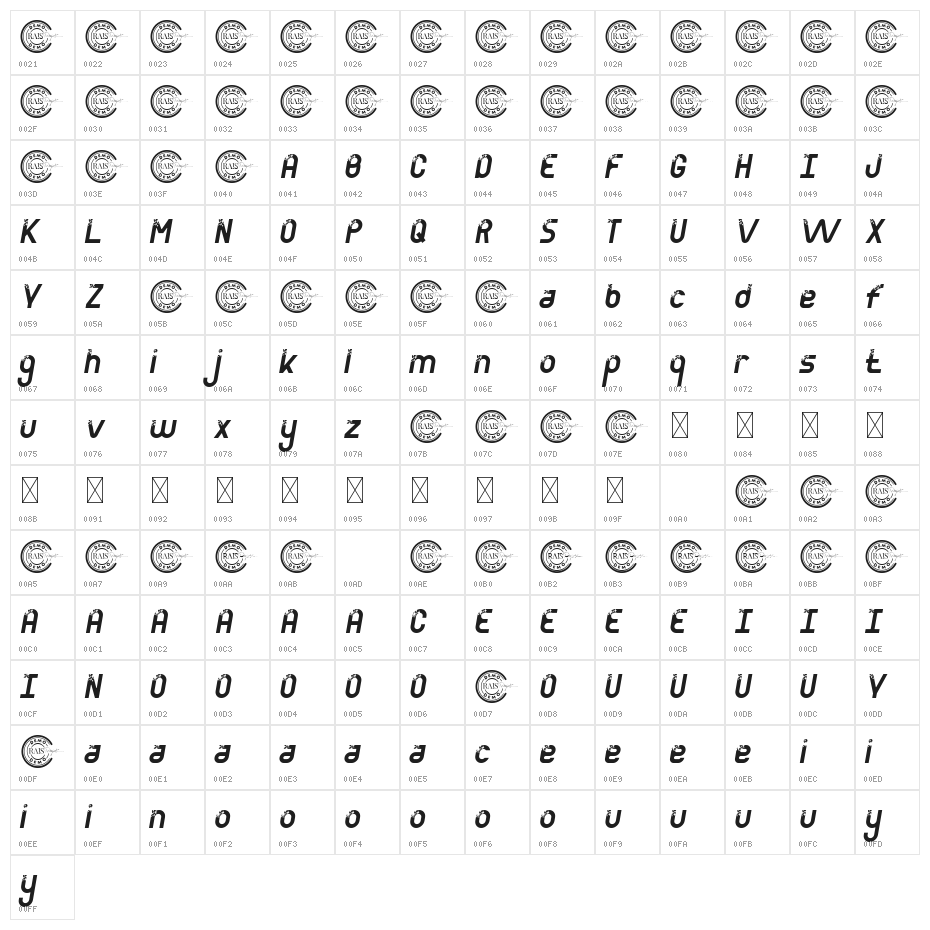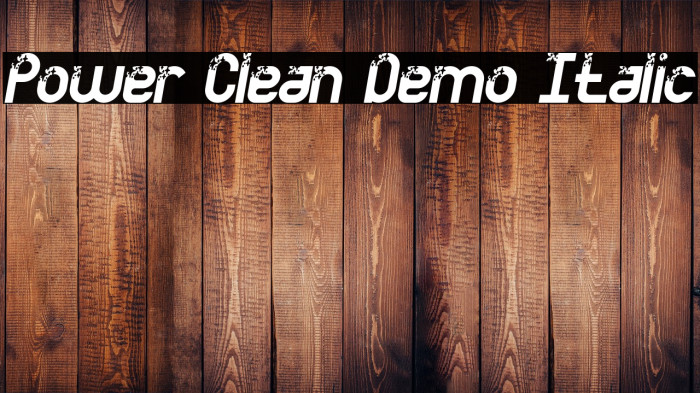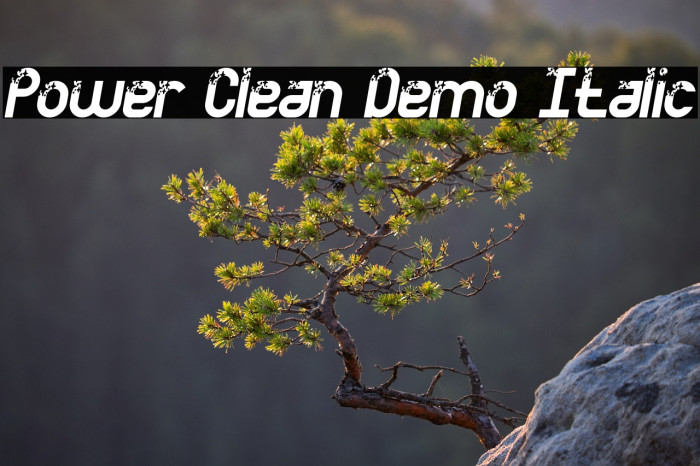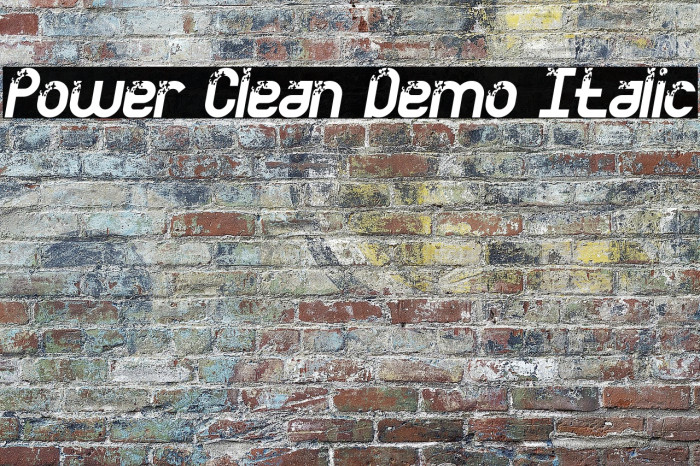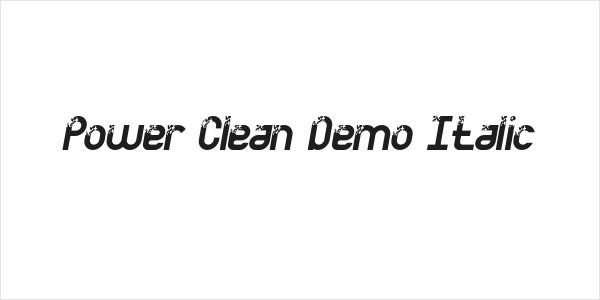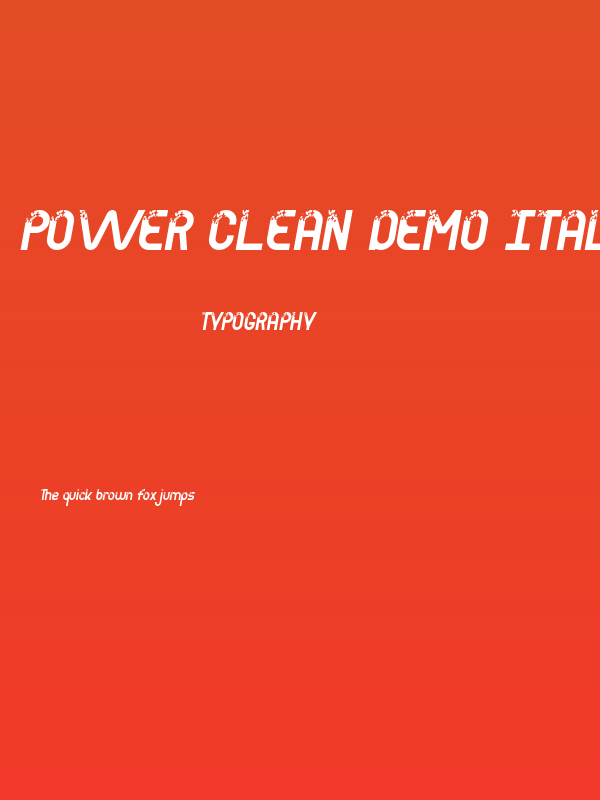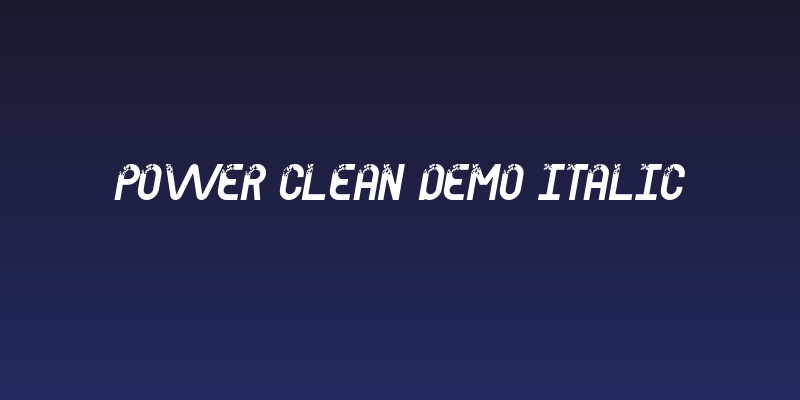
Power Clean Demo Italic Font
Power Clean Demo Italic Description
This font features a bold and dynamic design with a distressed, grunge-like texture that gives it a rugged and edgy appearance. The italicized style adds a sense of motion and energy, making it stand out in any design. The uppercase and lowercase letters maintain a consistent style, with sharp angles and clean lines that enhance its modern aesthetic. The numbers and special characters are equally bold and textured, ensuring a cohesive look across all elements. This font is perfect for projects that require a strong, impactful visual presence.
| Proposed Projects | Ideal for posters, album covers, branding, and any design needing a bold, edgy look. |